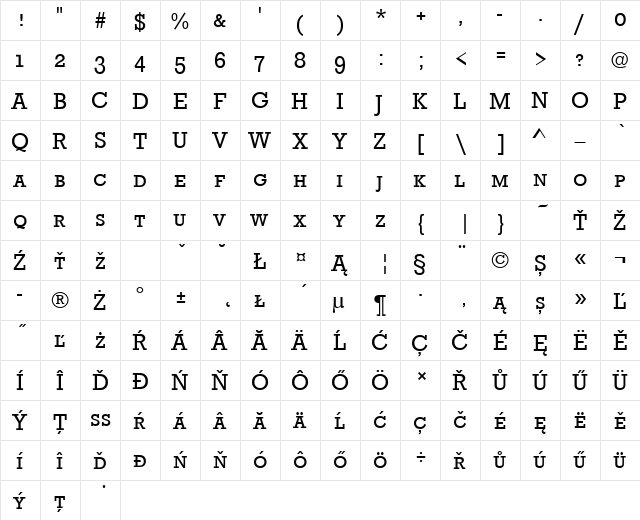
RoctusSCTEE Regular Font Preview
RoctusSCTEE Regular
RoctusSCTEE Regular Font Details
Design Context for RoctusSCTEE Typeface
RoctusSCTEE is a composed and adaptable typeface that performs quietly and consistently across a wide range of design contexts.